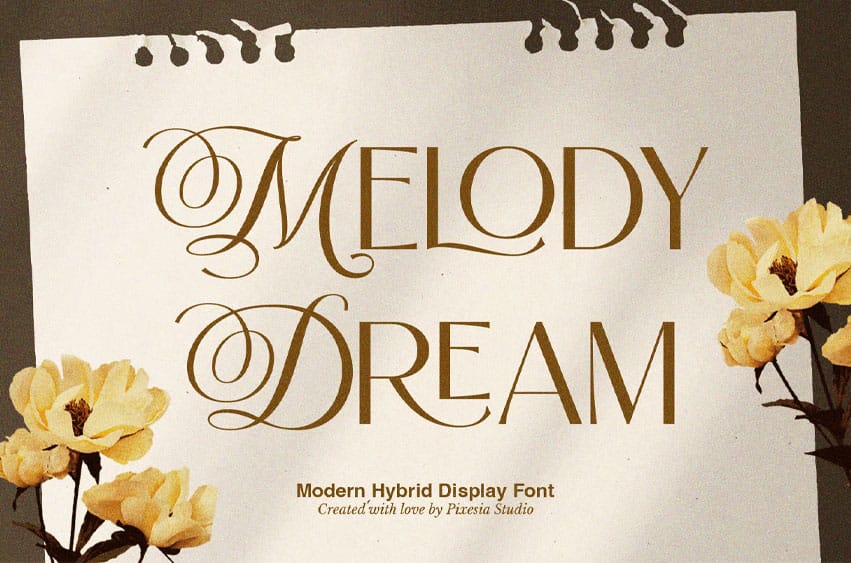
Melody Dream FontĀ is a captivating hybrid font that seamlessly merges the elegance of script with the modern simplicity of sans serif. This unique combination creates a harmonious blend of styles, perfect for adding a touch of sophistication to any design project.
With its fluid, graceful script letters intertwined with clean and sleek sans serif characters, Melody Dream offers a versatile and visually striking typographic solution.
- Stylistic Alternates
- Uppercase and Lowercase letters
- Numbering and Punctuations